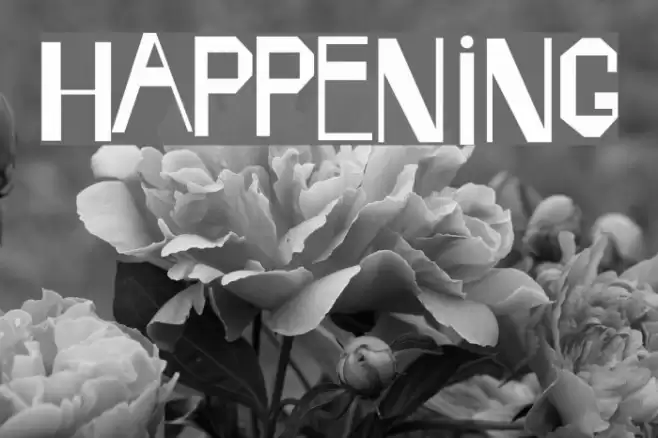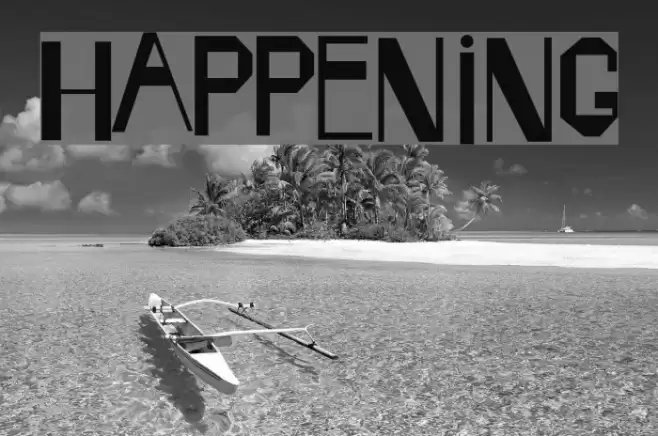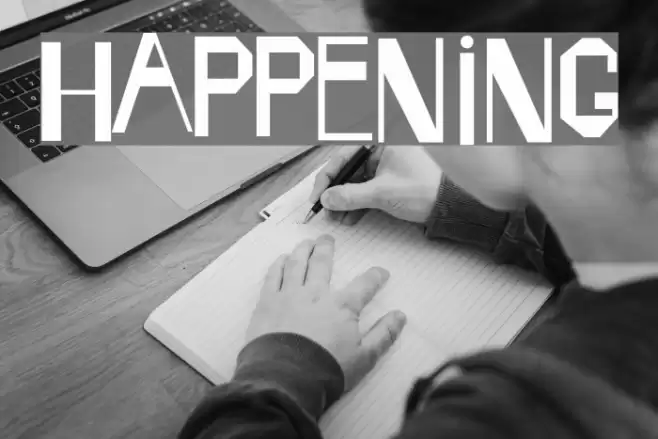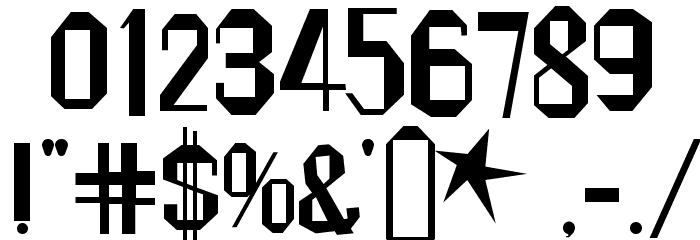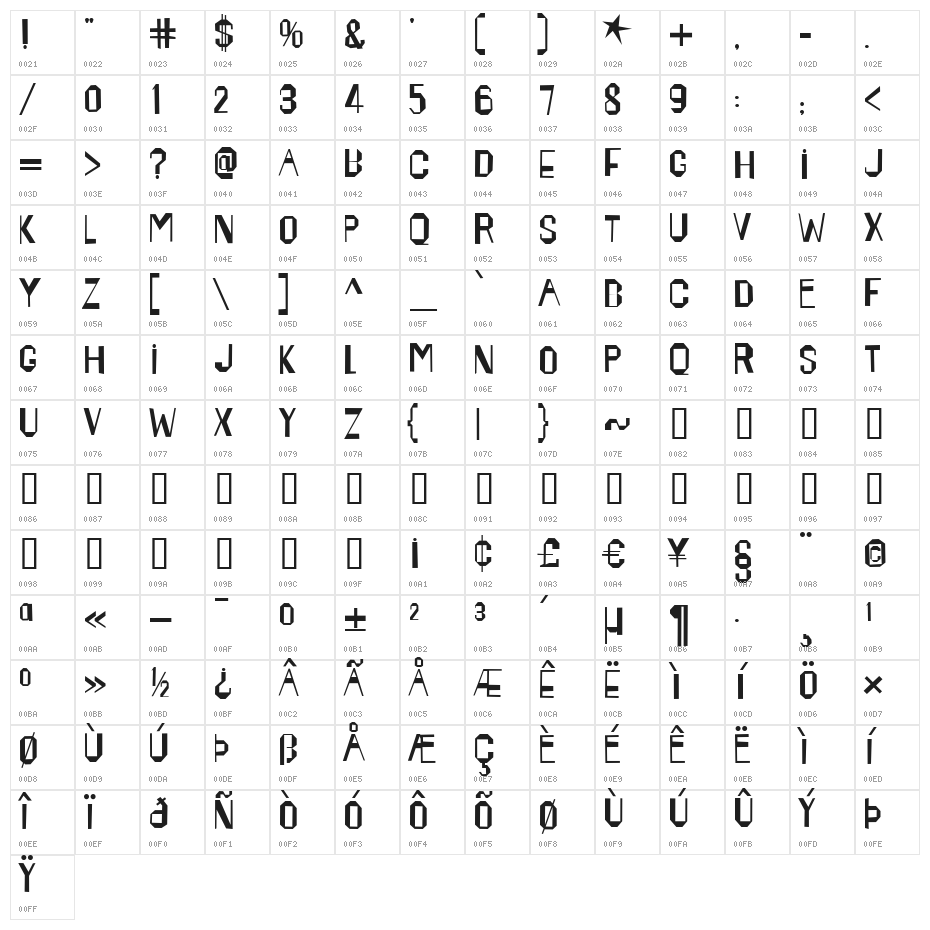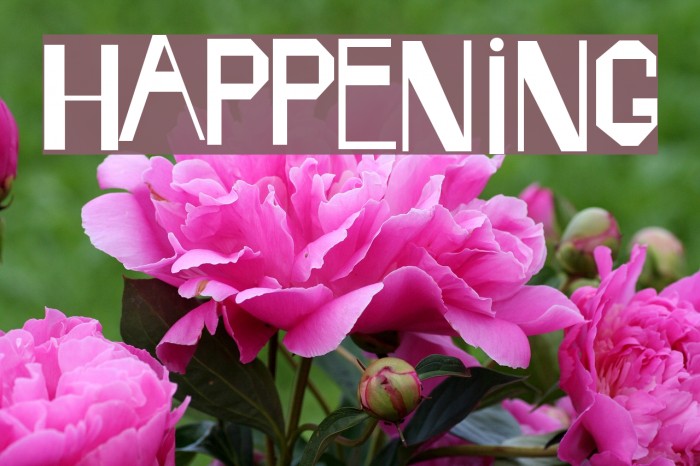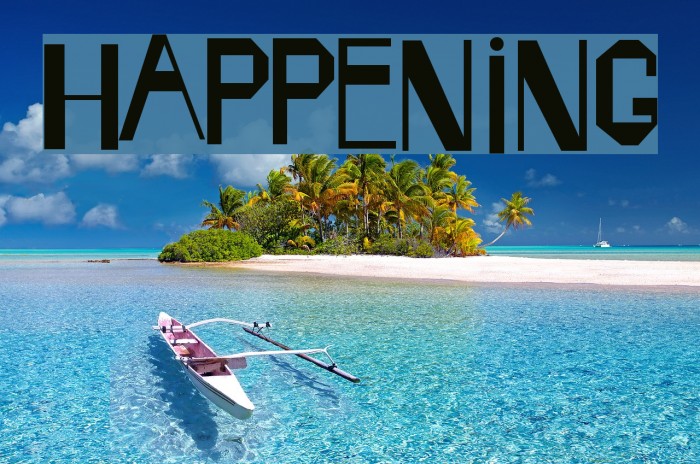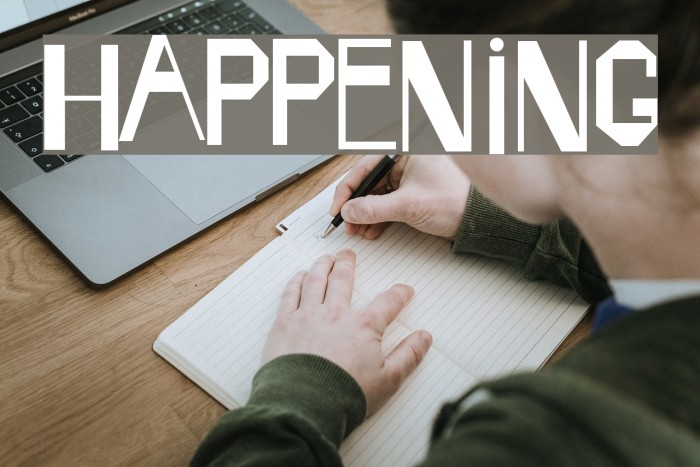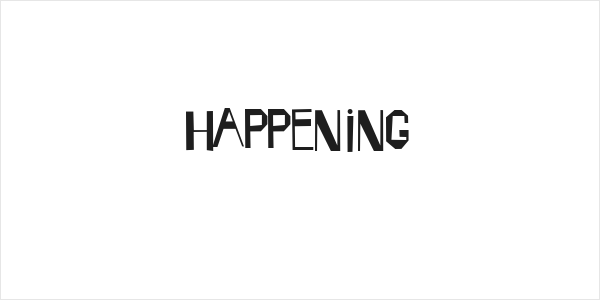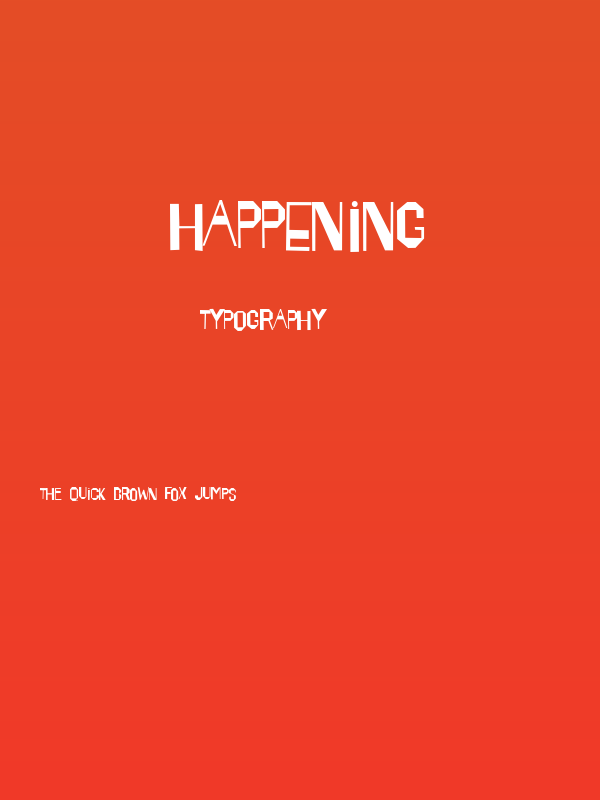
Happening Font
Happening Description
This font features a bold, geometric design with sharp angles and a modern aesthetic. The uppercase letters are distinct with a strong presence, while the lowercase letters maintain a consistent style, offering a cohesive look. Numbers and special characters are crafted with the same angular approach, making them stand out. The font's design is suitable for creating impactful headlines and attention-grabbing titles. Its unique style can add a contemporary edge to any project, making it ideal for branding, posters, and digital media.
A bold, geometric font with sharp angles and a modern aesthetic from Capitals fonts.
- Proposed Projects: Ideal for branding, posters, digital media, and attention-grabbing headlines.